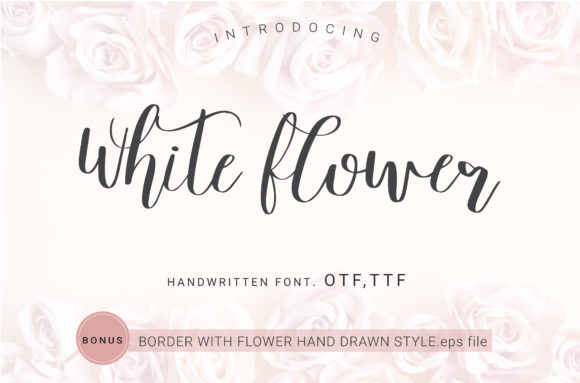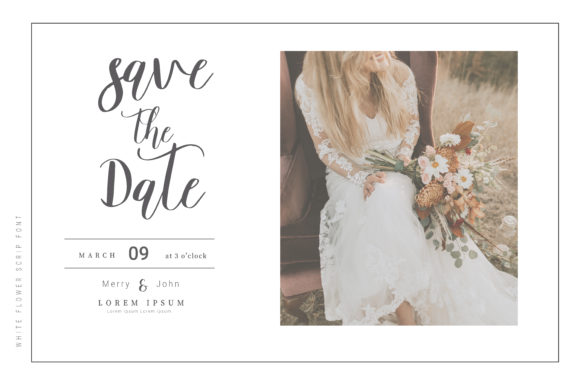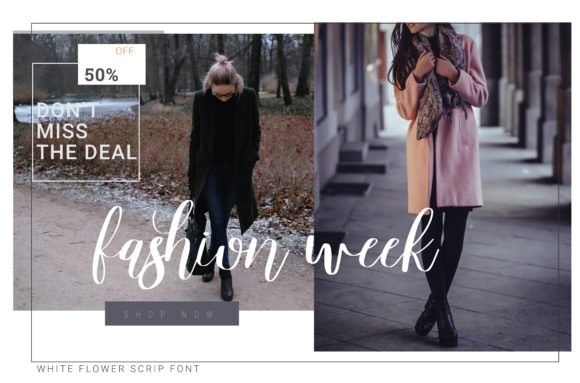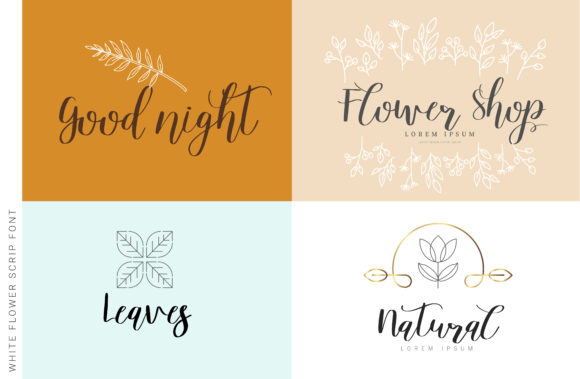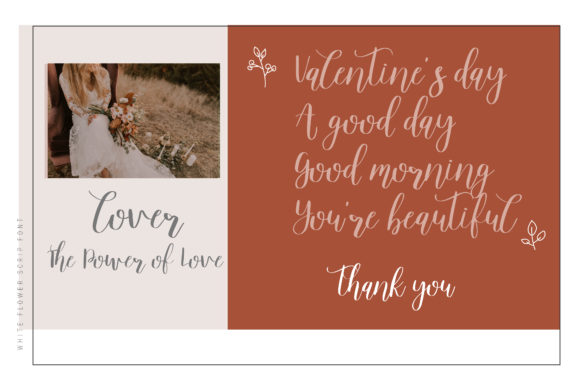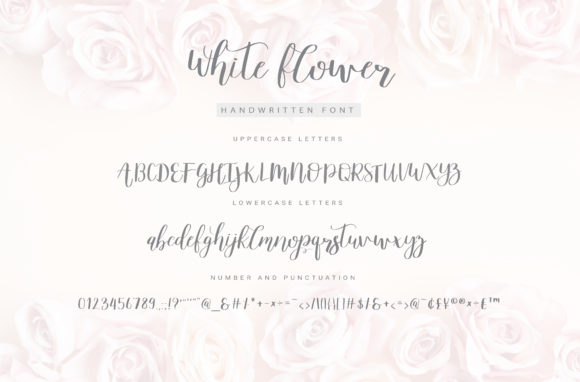
White Flower Font
About White Flower Font
White Flower simplifies elegance into one truly outstanding handwritten font. It will elevate a wide range of design projects to the highest level, be it branding, headings, wedding designs, invitations, signatures, logos, labels, and much more!